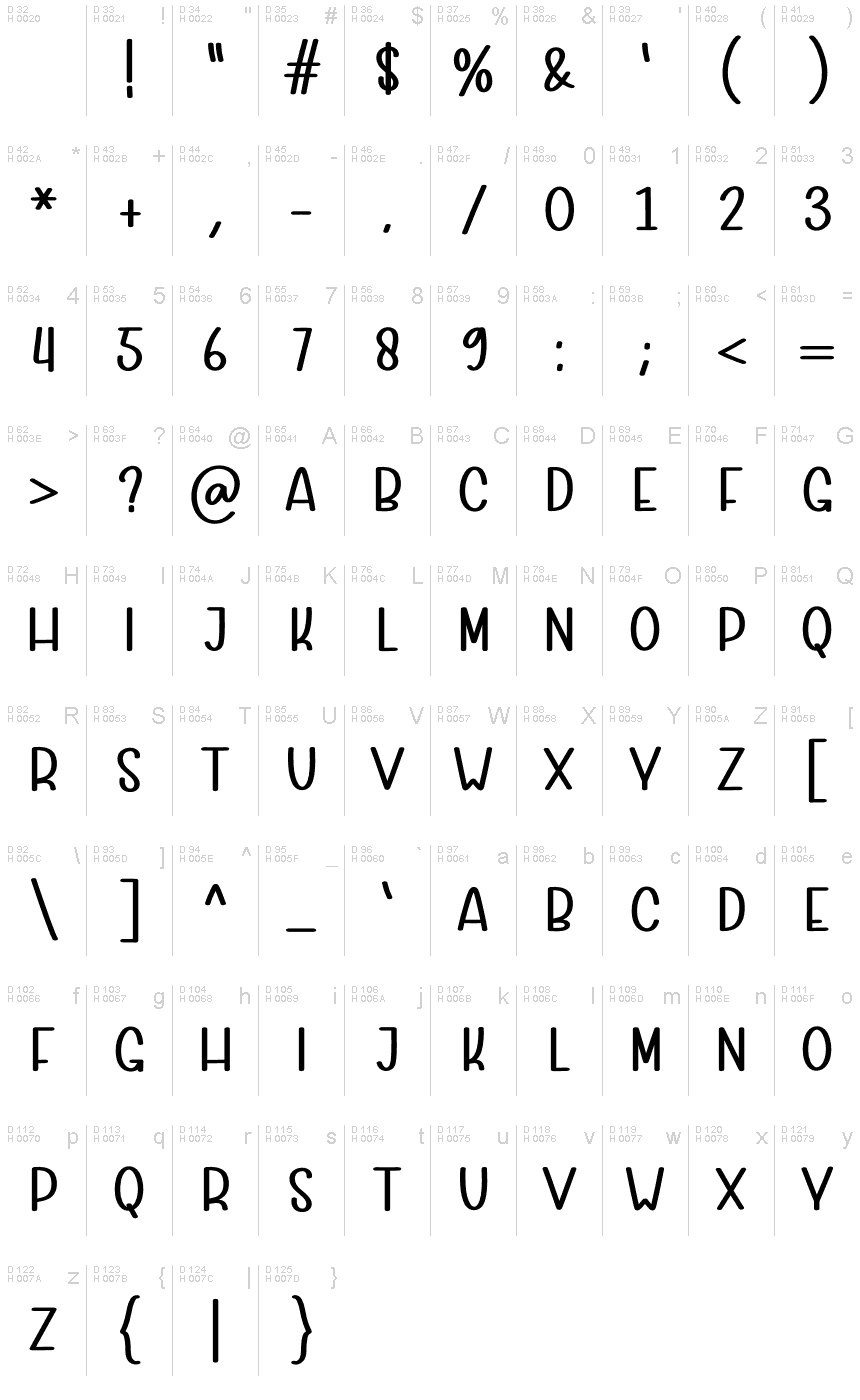
Safe Holiday Family
Looking for a font that's perfect for family-oriented projects? Look no further than Safe Holiday Family! Designed by scratchones, this display font features a semi-light weight and semi-condensed width, making it ideal for titles and headlines. Its cute, all caps style is perfect for adding a touch of whimsy to your designs. Use it on holiday cards, family scrapbooks, or even children's books. With Safe Holiday Family, your projects will be both charming and legible. Try it out today!
the latest style letters are perfect for wall displays, wedding invitations, social media post logos, advertisements, product packaging, product designs, labels, photography, watermarks, invitations, stationery, and any project that requires taste handwriting.